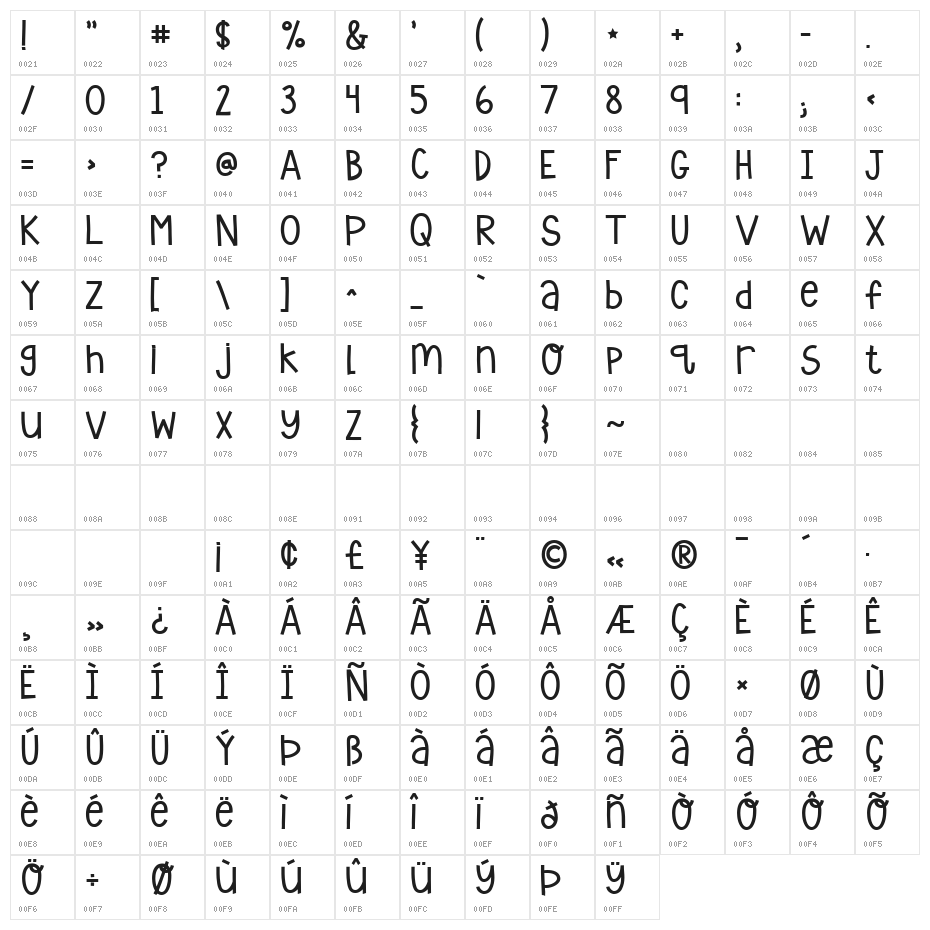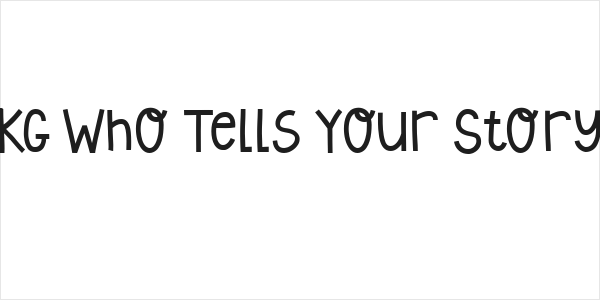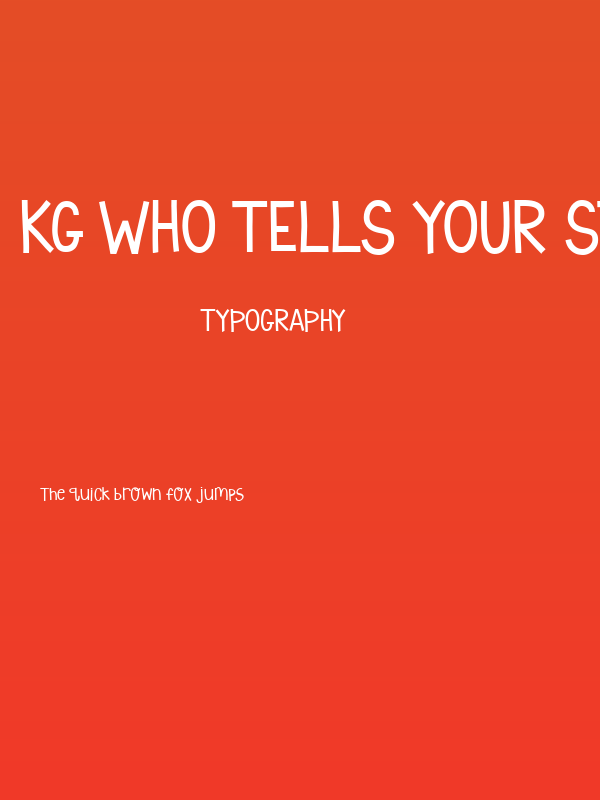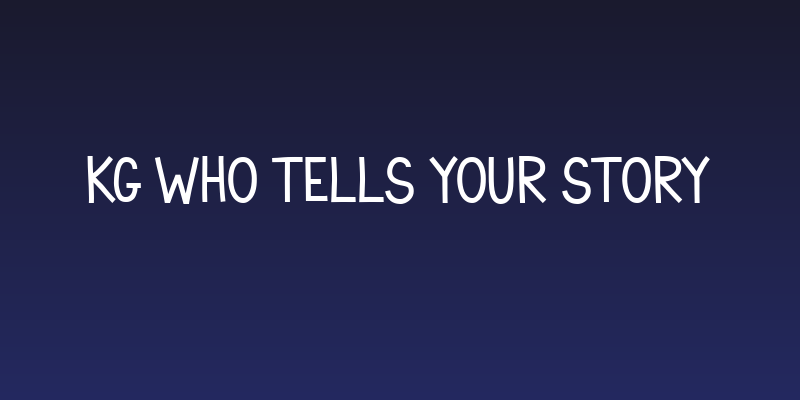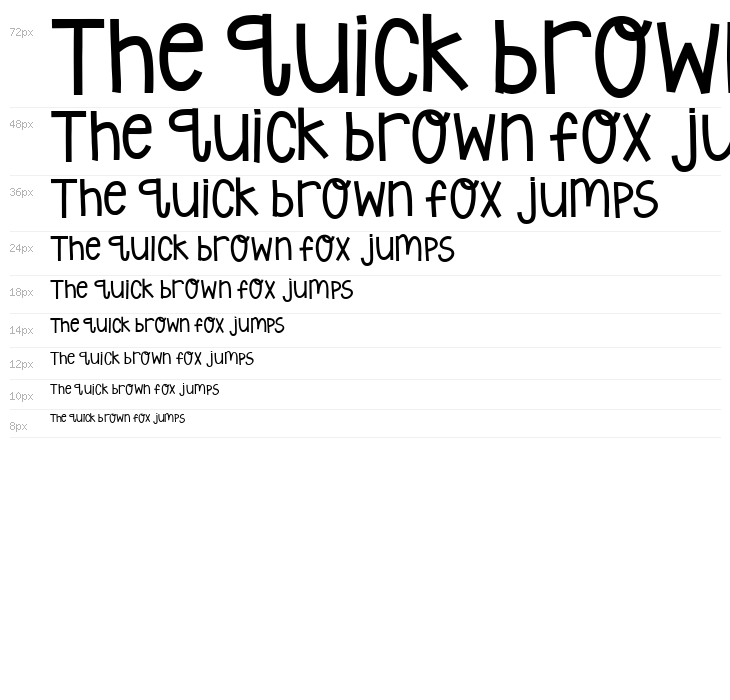
KG Who Tells Your Story Font
KG Who Tells Your Story Description
This font features a playful and whimsical design, characterized by its hand-drawn appearance. The letters have a slightly uneven baseline, adding to its casual and friendly feel. The strokes are consistent in weight, giving it a uniform look despite its informal style. The rounded edges and slight irregularities in the letterforms contribute to its approachable and fun aesthetic. This font includes a full set of uppercase and lowercase letters, numbers, and a variety of special characters, making it versatile for different uses.